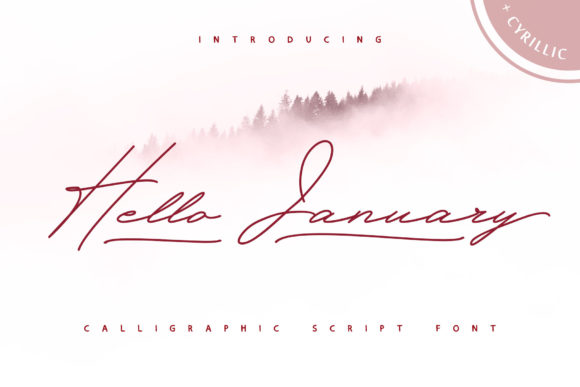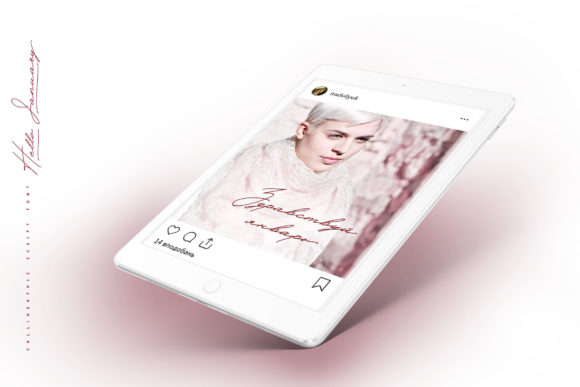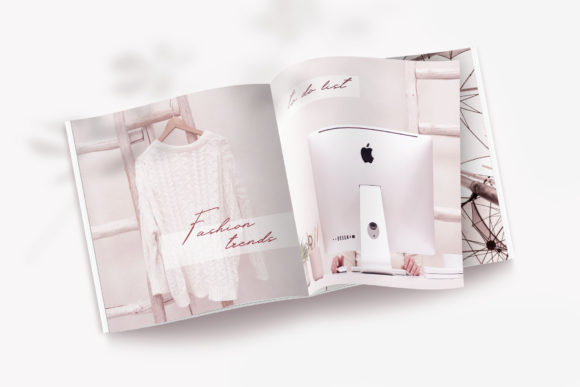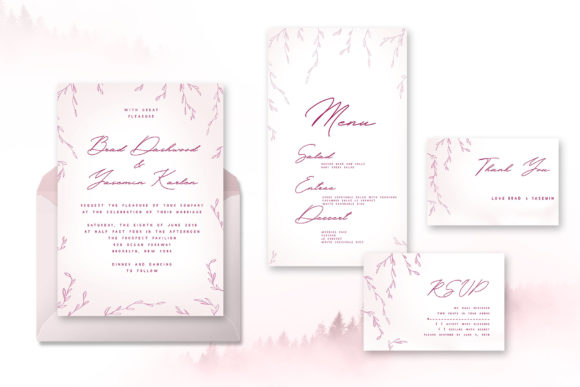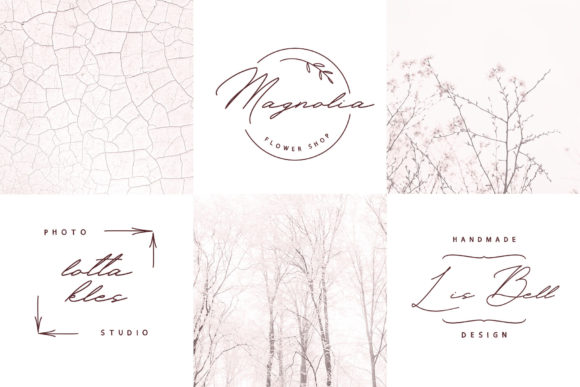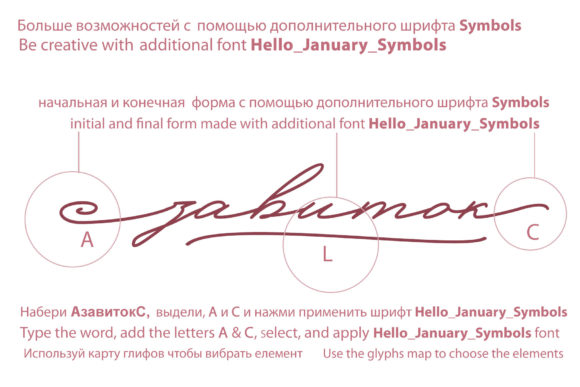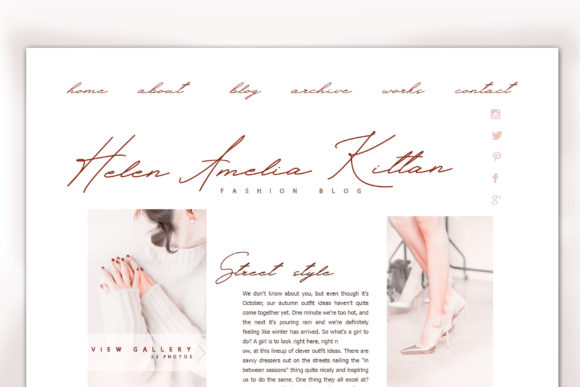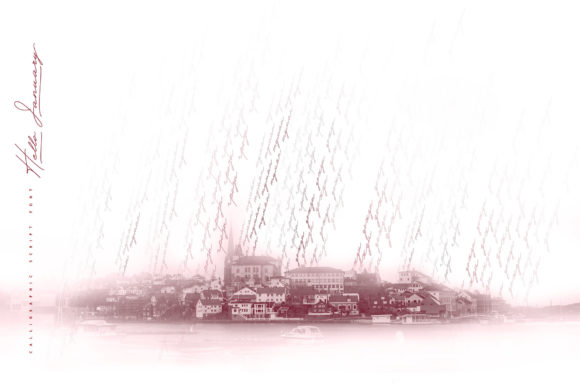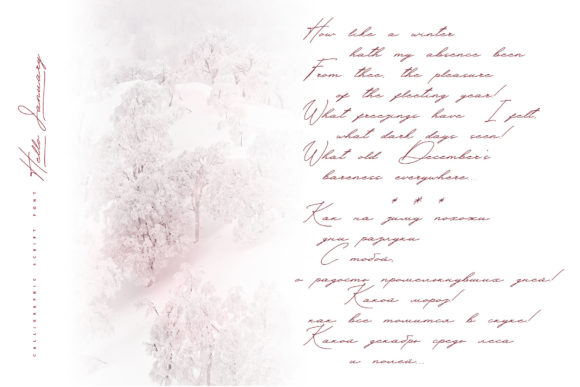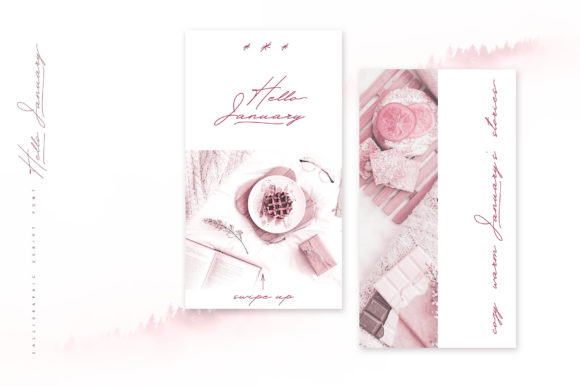
Hello January Font
About Hello January Font
Hello January is an elegant font. It’s suitable for branding, wedding stationery, quotes, social media posts and much more. It comes with beautiful symbols that will take your designs to the next level!